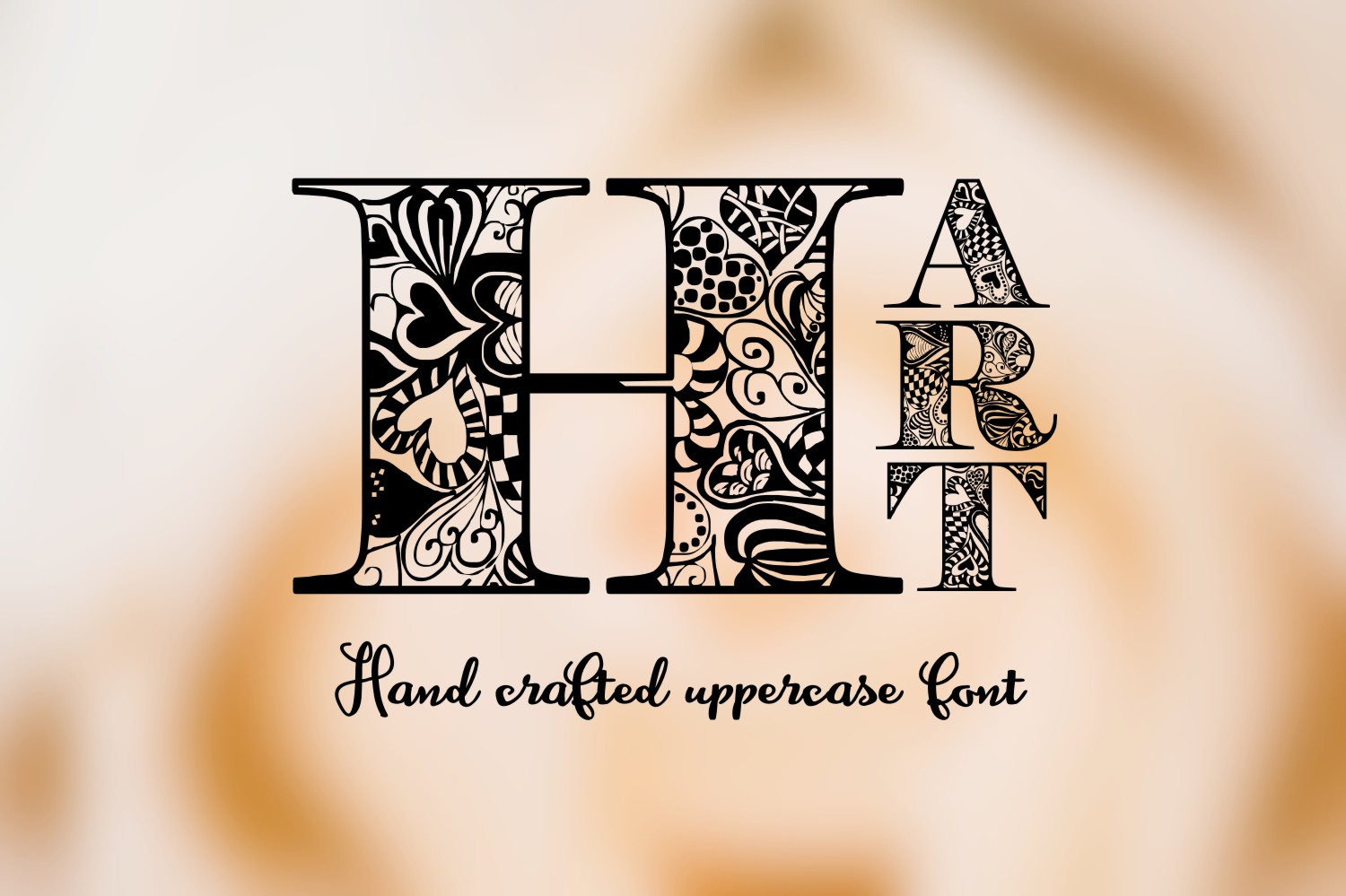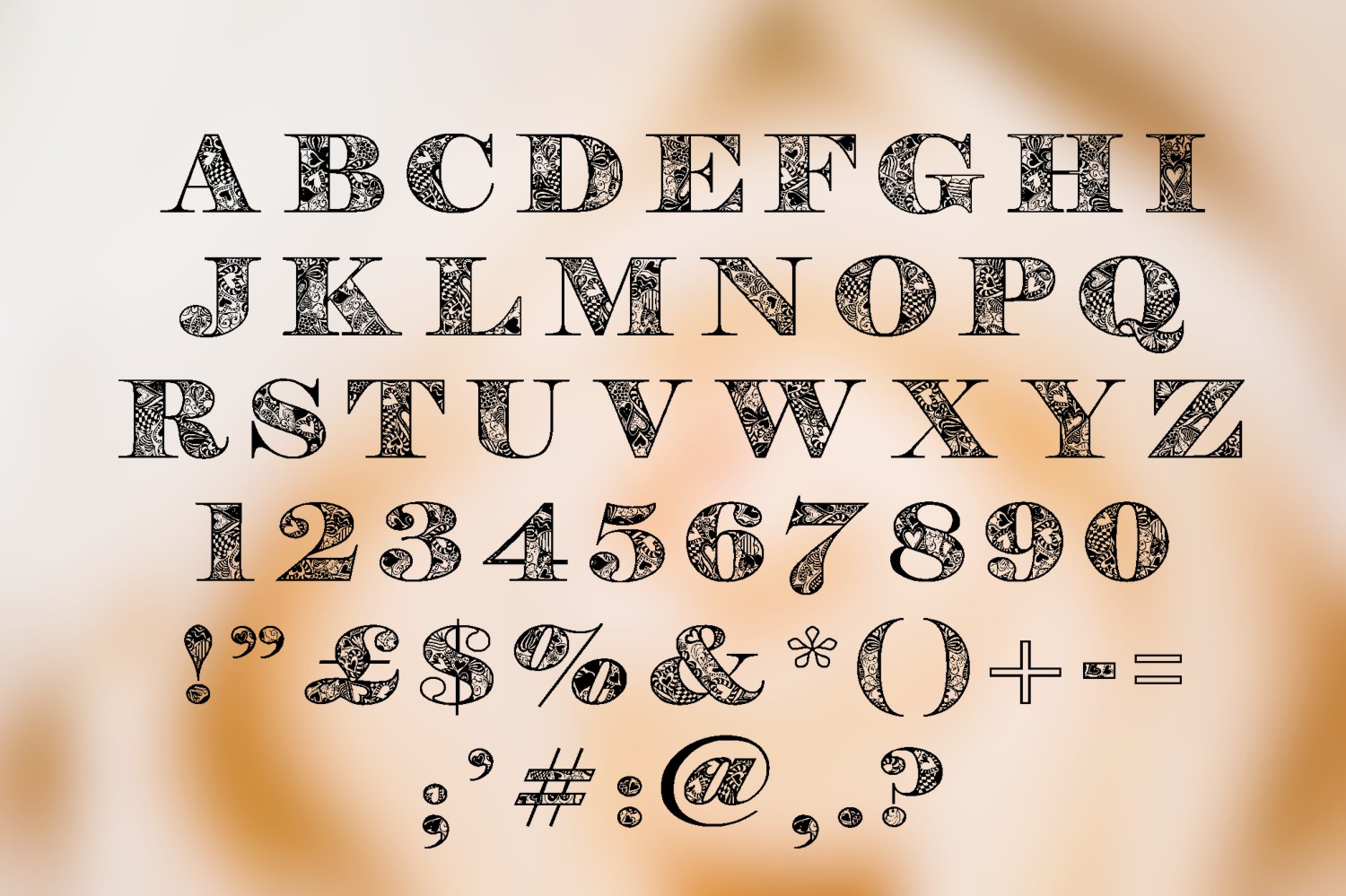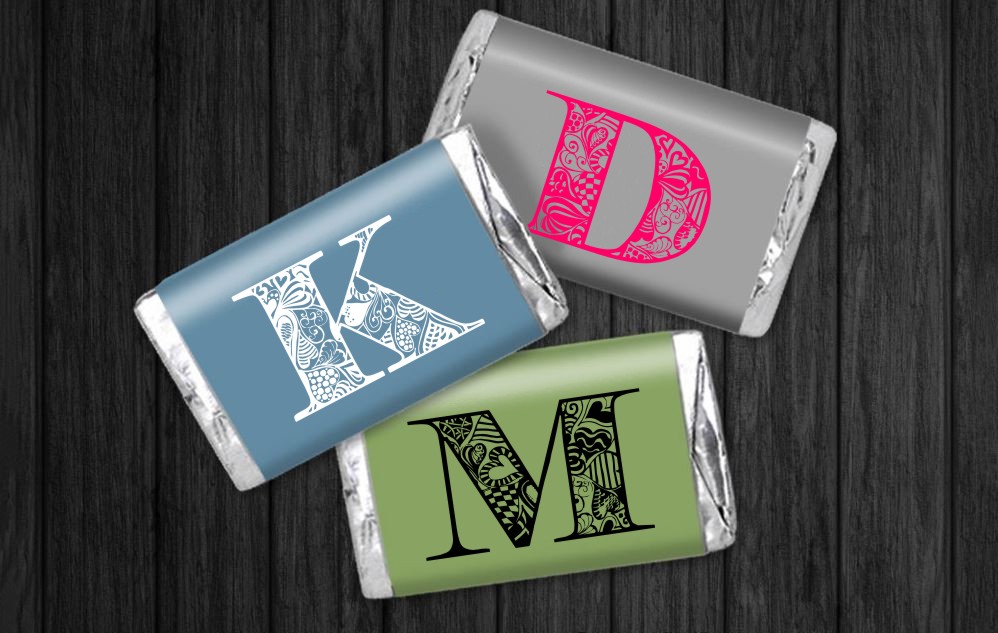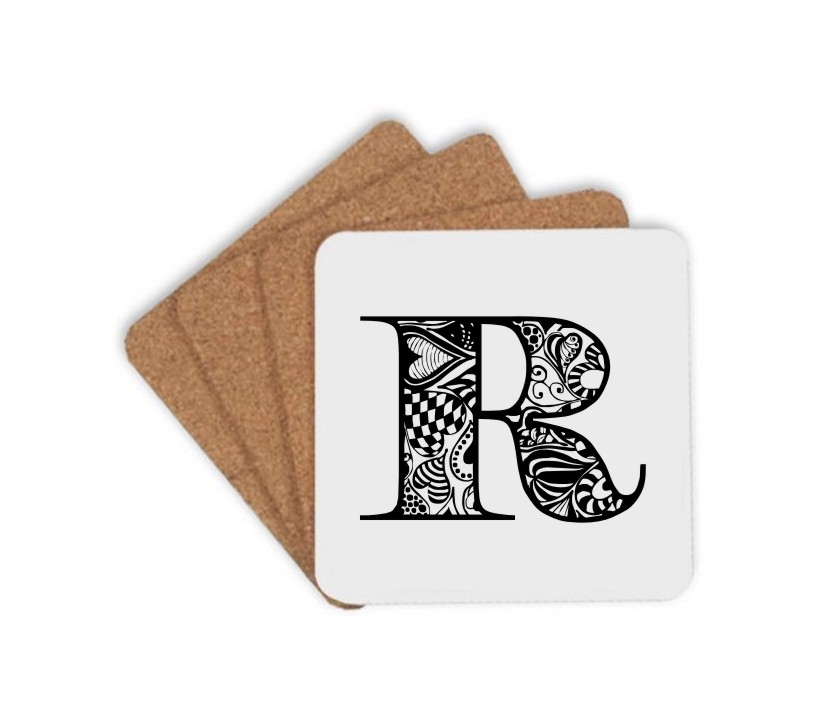
Hart Font: A Decorative Display Font for Unique Monogram Designs
About the Hart Font
The wait is over! The incredible Hart Font is now available for your design toolkit. Hart is a stunning handcrafted, decorative uppercase font that is perfect for giving your designs and crafting projects a ton of texture and charm. This font is useful for monogram purposes, and is capable of giving your content a branded look.
Hart’s handcrafted texture and decorative style make it ideal for headlines, logos, short impactful statements, and packaging design where its unique charm can shine. It’s also well-suited for creating eye-catching social media graphics or short-form content. However, its decorative nature makes it unsuitable for body text or extended reading; the ornate forms would hinder readability in longer passages.
Its bold, slightly quirky personality lends itself to brands seeking a handcrafted, vintage, or artisan feel. Think small boutiques, craft breweries, or artisanal food companies. Avoid pairing it with fonts that compete for attention; instead, consider a clean sans-serif like Montserrat or a neutral serif like Lora for body copy, balancing Hart’s decorative energy with readability.
For a more playful feel, a rounded sans-serif such as Bebas Neue could also be effective, providing a fun counterpoint to Hart’s ornate forms. Conversely, a classic serif like Garamond would enhance its sophisticated side for more traditional applications.
Hart Font Usage Examples